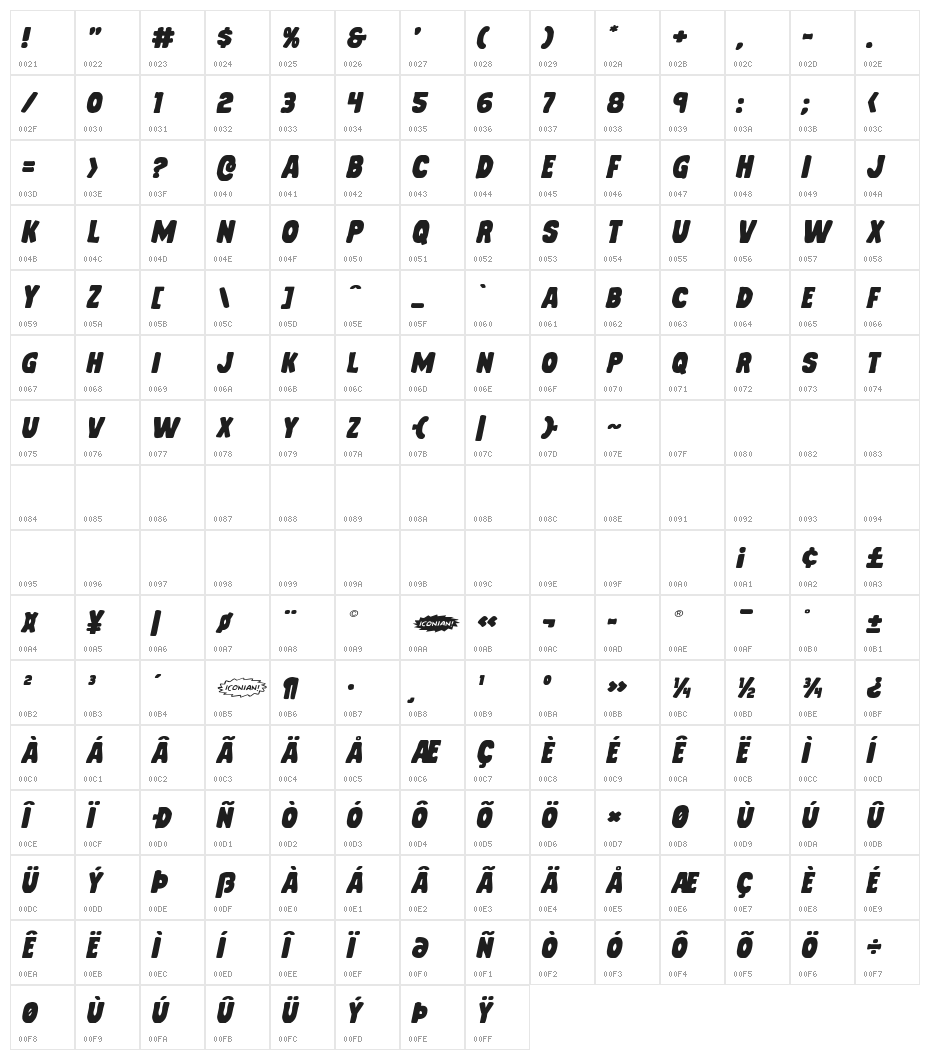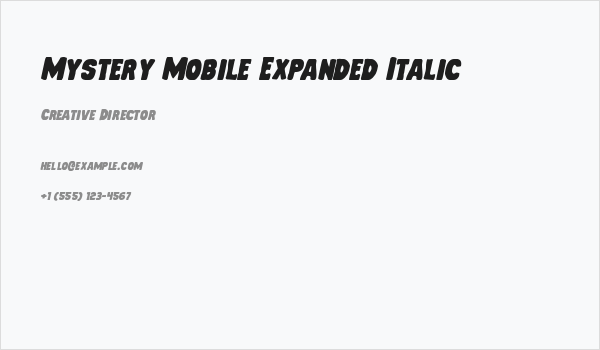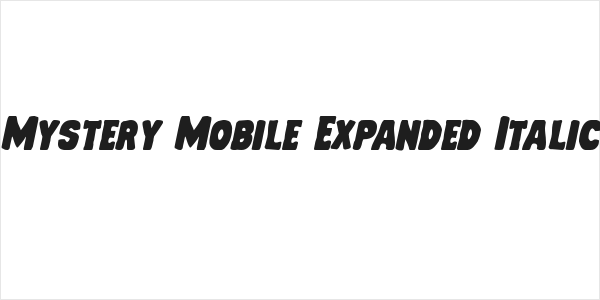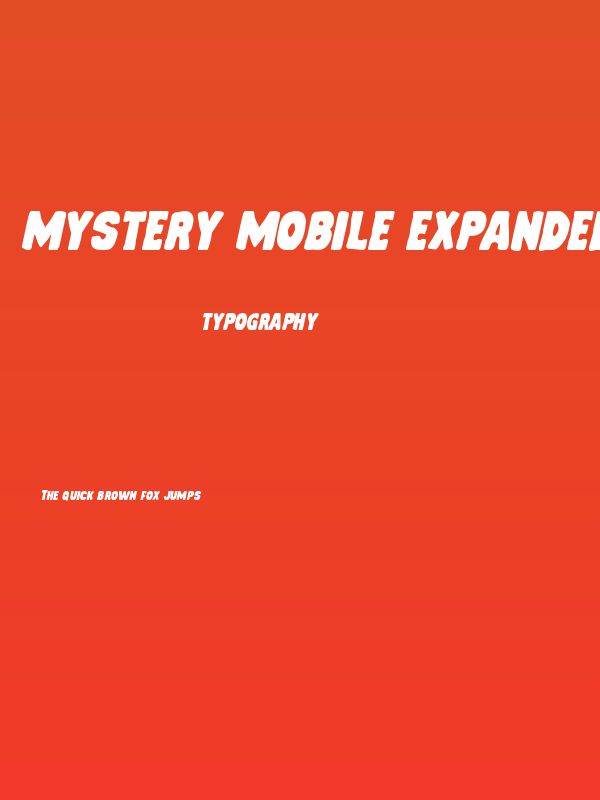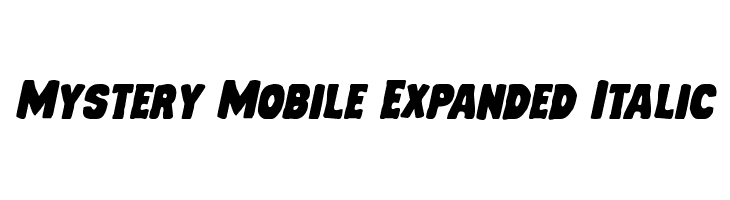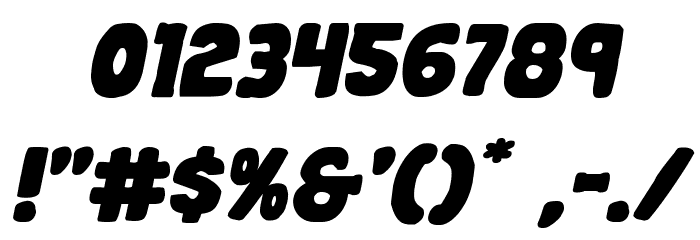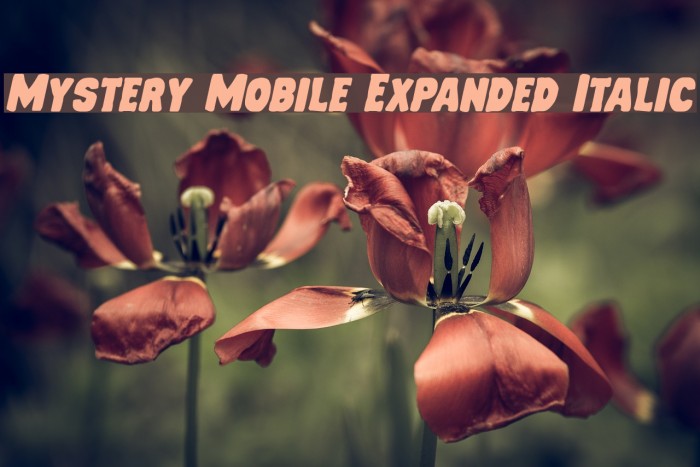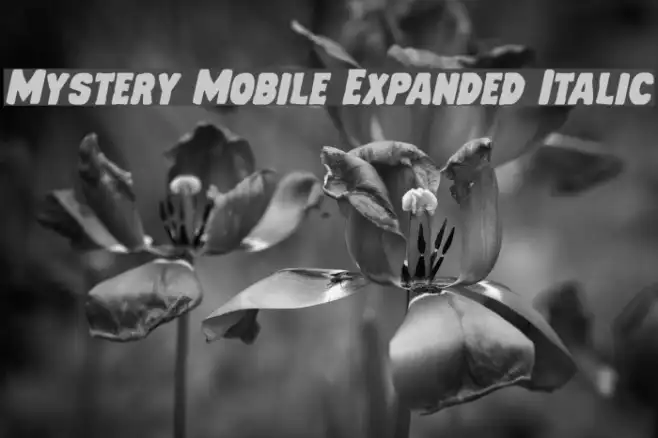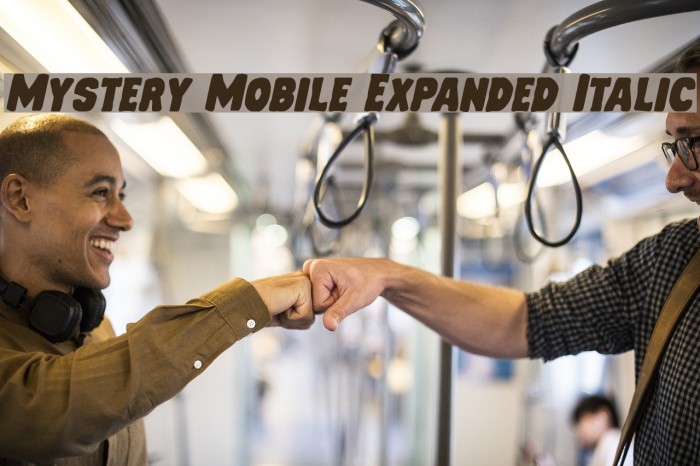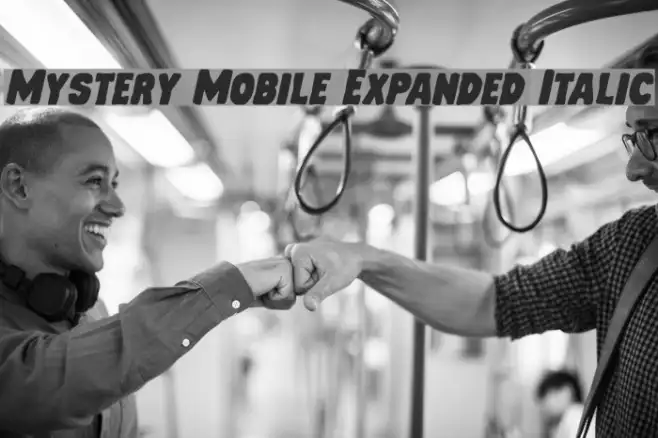
Mystery Mobile Expanded Italic Font
Mystery Mobile Expanded Italic Description
This font features a bold and dynamic style with an italic slant, giving it a sense of movement and energy. The characters are expanded, providing a wide and impactful appearance. The strokes are thick and consistent, contributing to a strong visual presence. The font includes uppercase and lowercase letters, numbers, and a variety of special characters, making it versatile for different design needs. Its playful and bold nature makes it suitable for projects that require a standout and engaging typeface.
| Proposed Projects | Ideal for posters, headlines, branding, and any design that requires a bold and energetic typeface. |